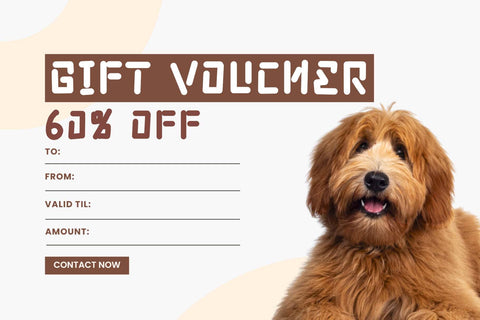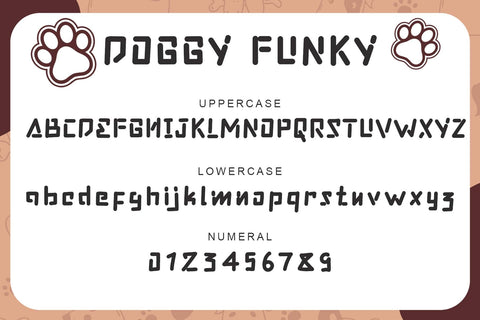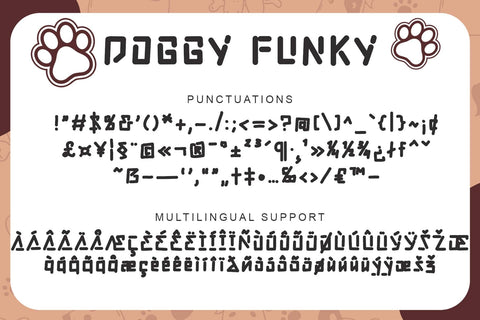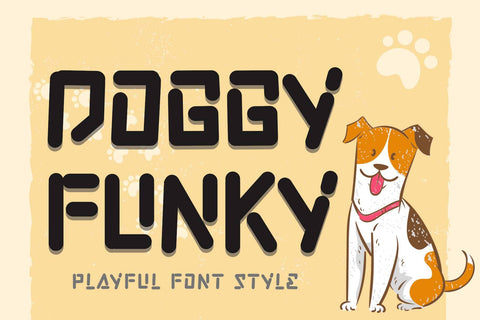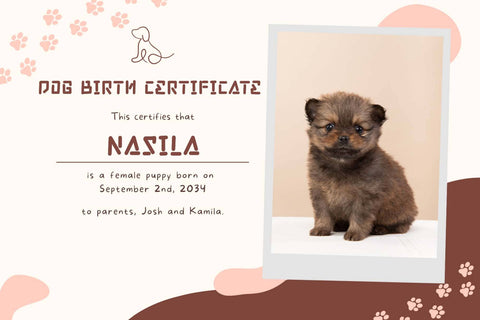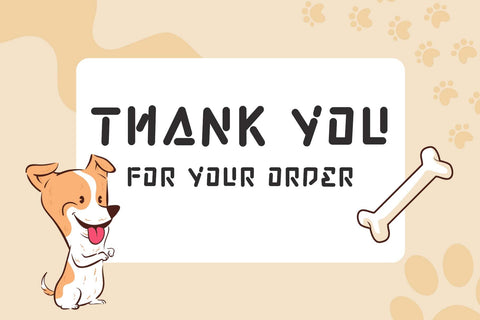
Doggy Funky
"Doggy Funky" is a cute and unique display font. This font is equipped with uppercase, lowercase, numeral, punctuations and multilingual support. Very suitable for use for spring, summer, doggy font, animal font, cartoon titles, comic titles, posters, prints, stickers, banners, branding and others.